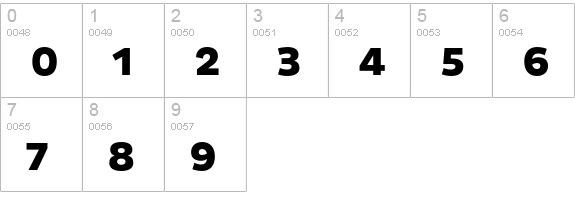
Pluto Heavy is a heavy, high-impact variant in the Pluto typeface family \xE2\x80\x94 well suited to high-impact headlines, posters, and display advertising.
Introducing Pluto Heavy font, a bold and impactful typeface designed to make a lasting impression. With its strong, sturdy appearance and eye-catching presence, Pluto Heavy is perfect for headlines, titles, and any design project that requires a touch of gravitas. This versatile font features thick, solid lines that command attention and give your text a sense of authority. Whether you're creating a poster, logo, or branding materials, Pluto Heavy delivers a powerful visual impact that sets your work apart. And the best part? Pluto Heavy is available for free download at FontsMarket.com. Simply visit the website to access this striking font and enhance your designs with its bold and dynamic style. Don't miss out on the opportunity to add Pluto Heavy to your font collection and elevate your projects with its impressive presence.